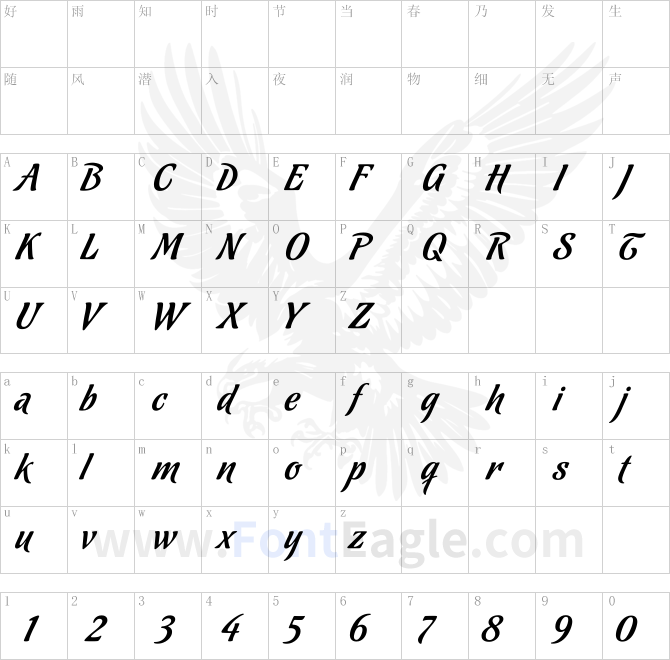
- Font name:Chocolate Caliente
- Font Subfamily ID:Sudtipos,Paul&Koziupa: Chocolate Caliente: 2005
- Font Full Name:Chocolate Caliente
- Font Version:1.000 May 2005
- Postscript:ChocolateCaliente